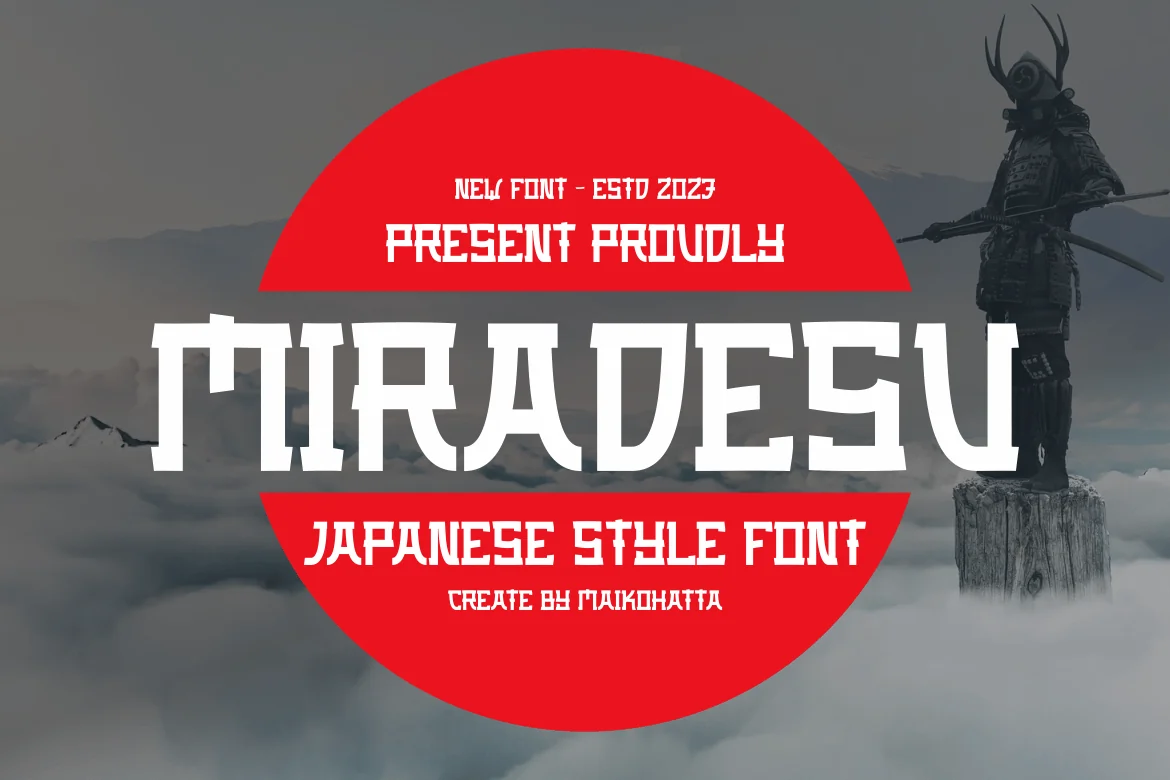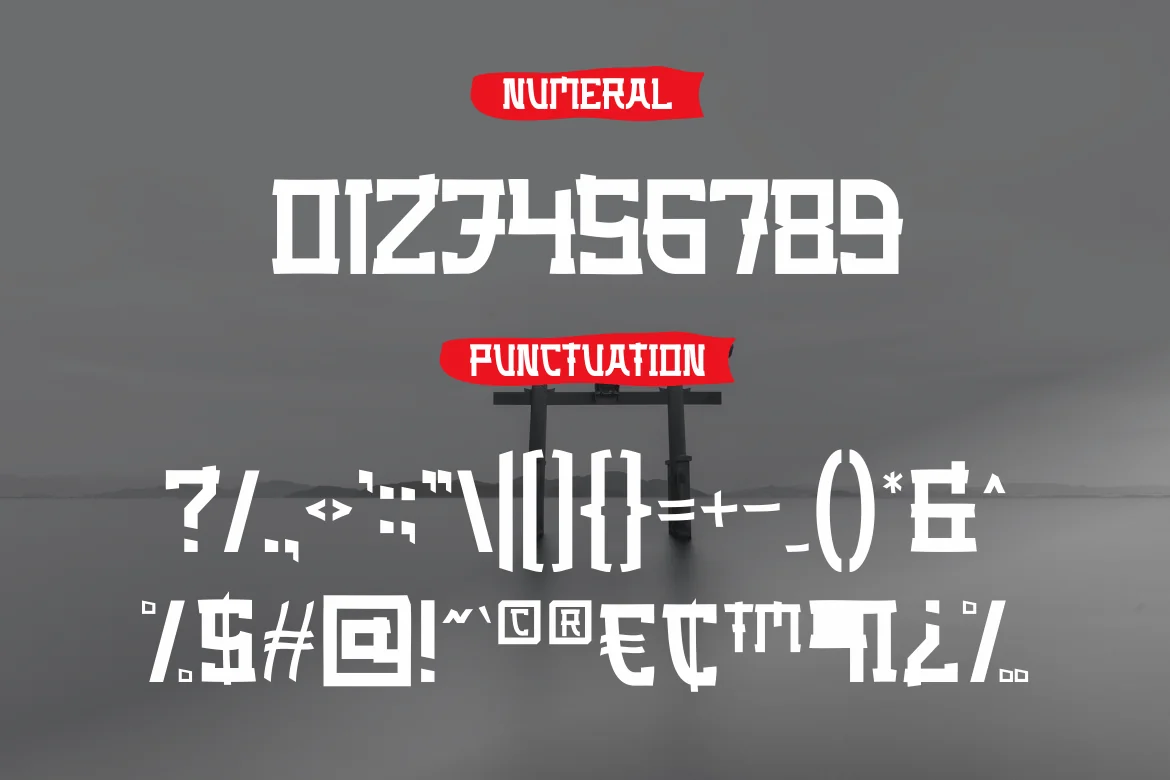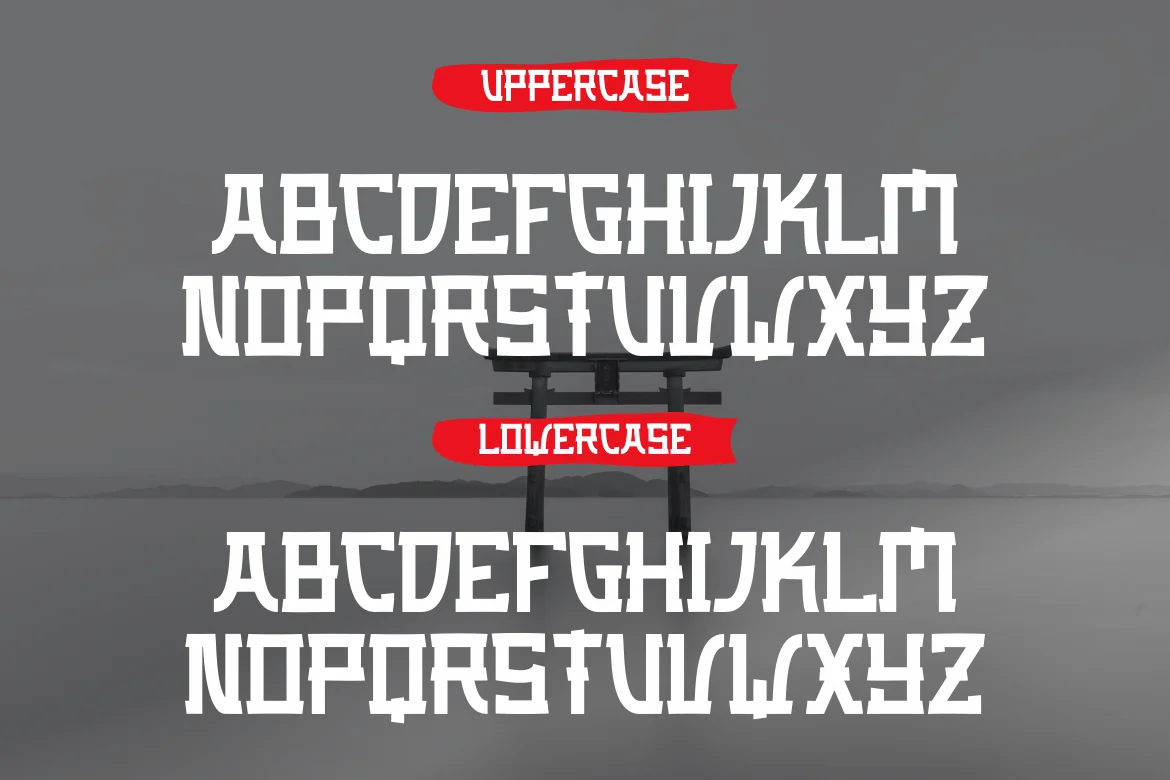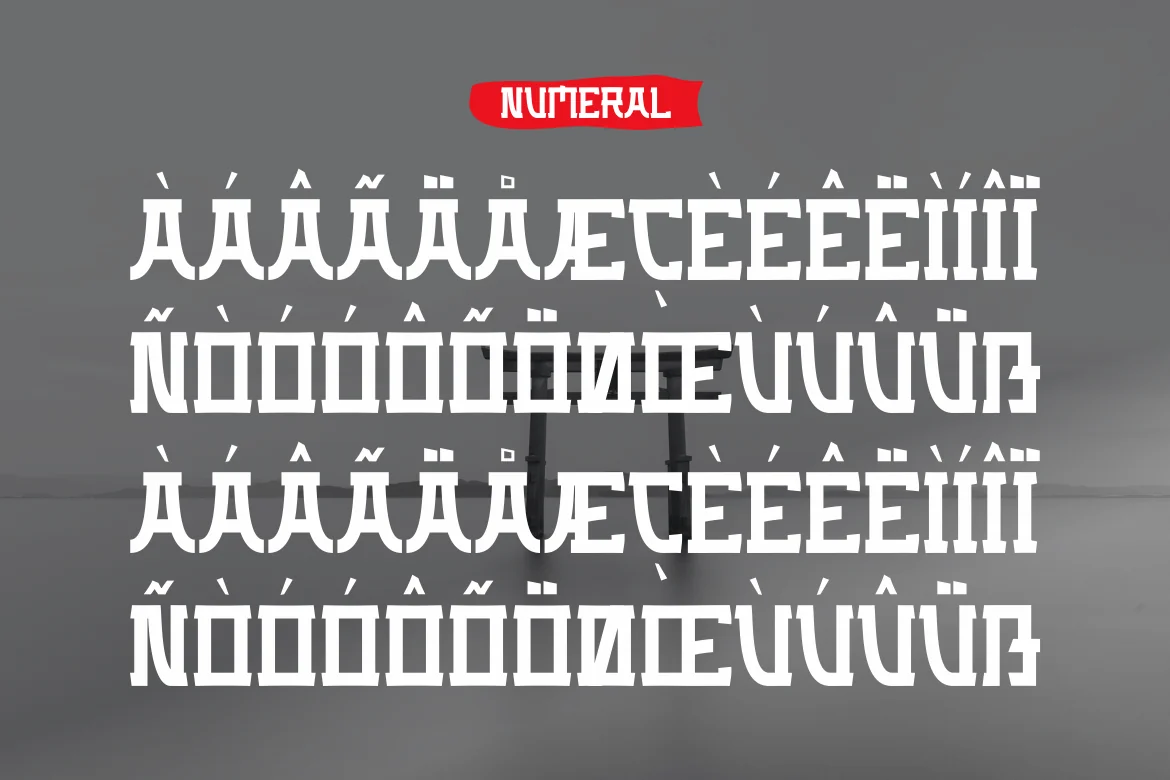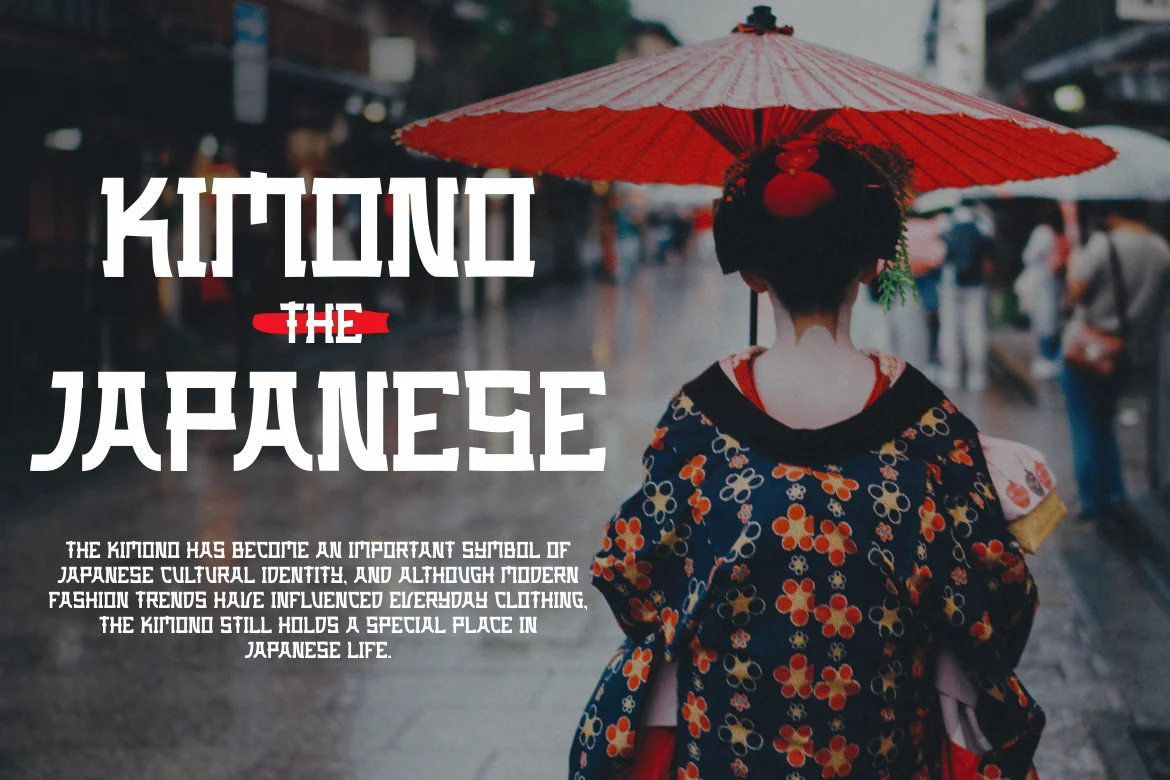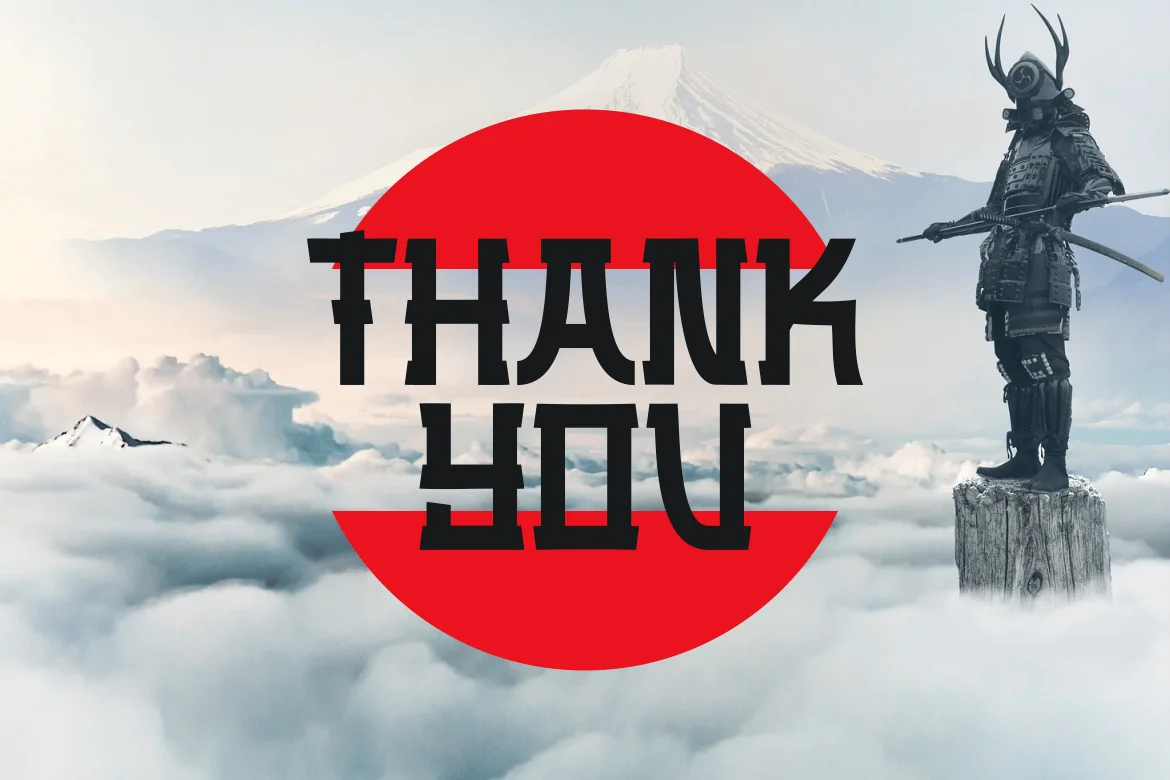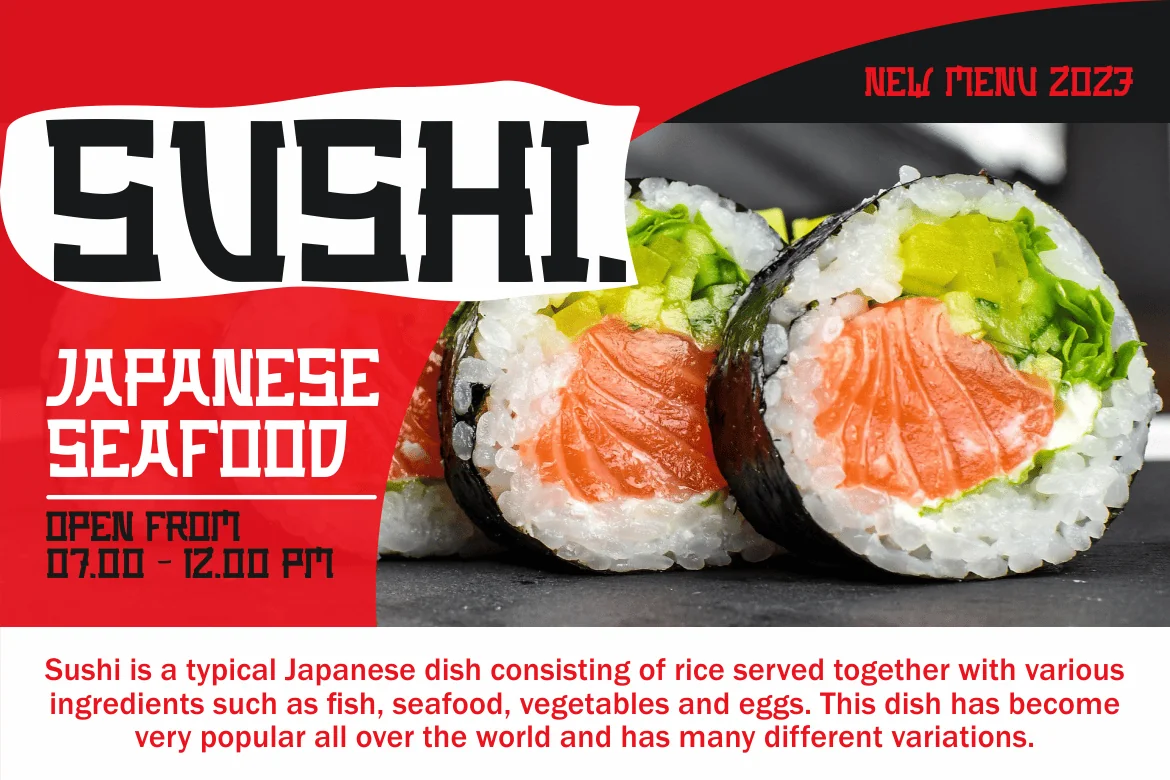
Miradesu – Japanese Style Font
Introducing our new product Miradesu – Japanese Style Font
This font is a combination of beautiful aesthetics, rich cultural history, and versatility in various design contexts. This makes Japanese fonts popular in written communication, both in print and digital media, with the ability to create a unique and captivating impression.